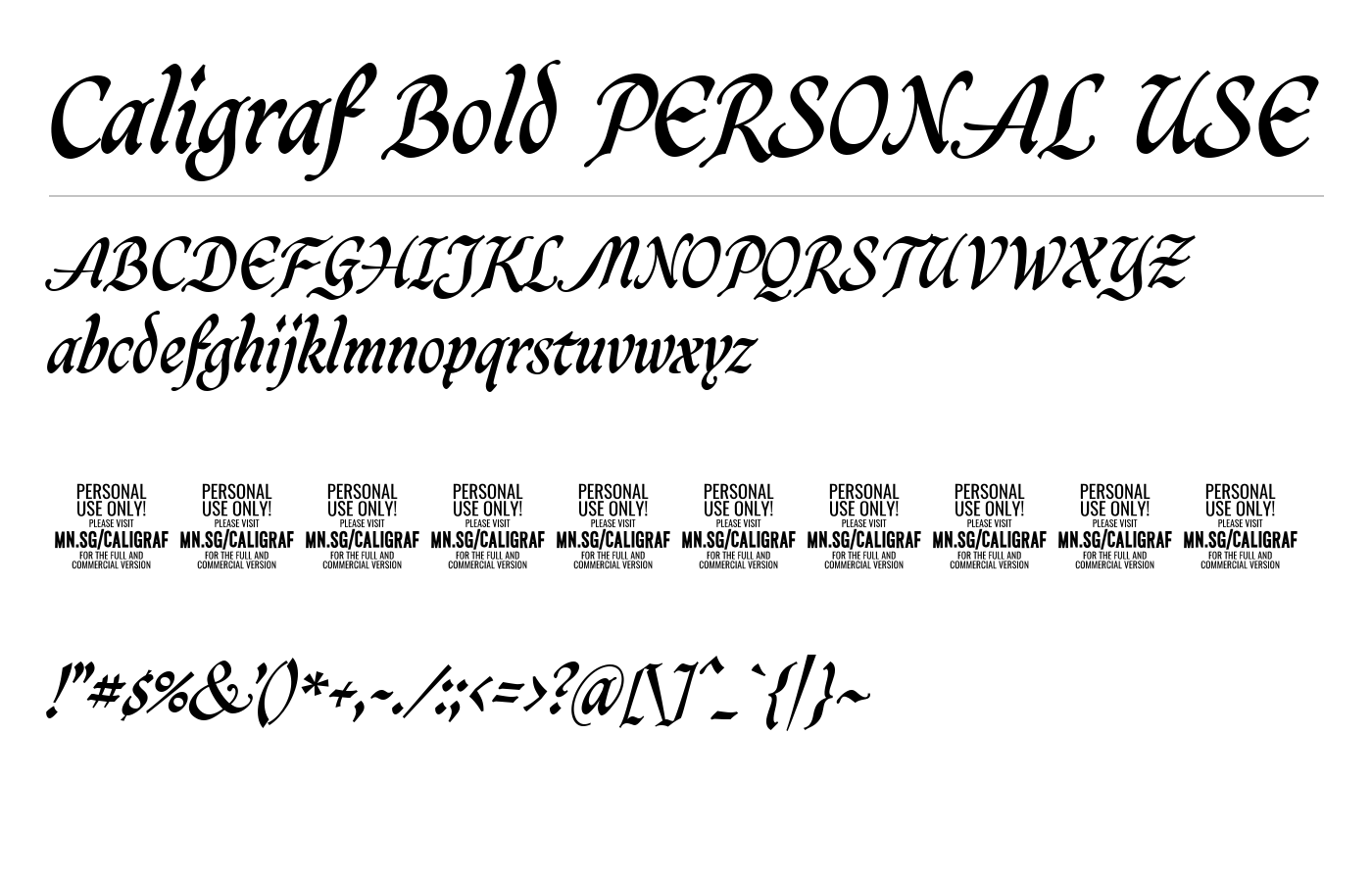
Caligraf Bold is a calligraphic serif font with a strong, elegant presence, featuring bold strokes and a distinctive hand-drawn style that combines sharp and flowing curves. Its moderate contrast and slightly condensed form make it perfect for expressive headlines, logos, and branding that seek a classic yet dynamic and sophisticated look. This font works well when you want to invoke a sense of tradition with a modern, artistic flair.
Caligraf Bold PERSONAL USE Font
About Caligraf Bold PERSONAL USE Font